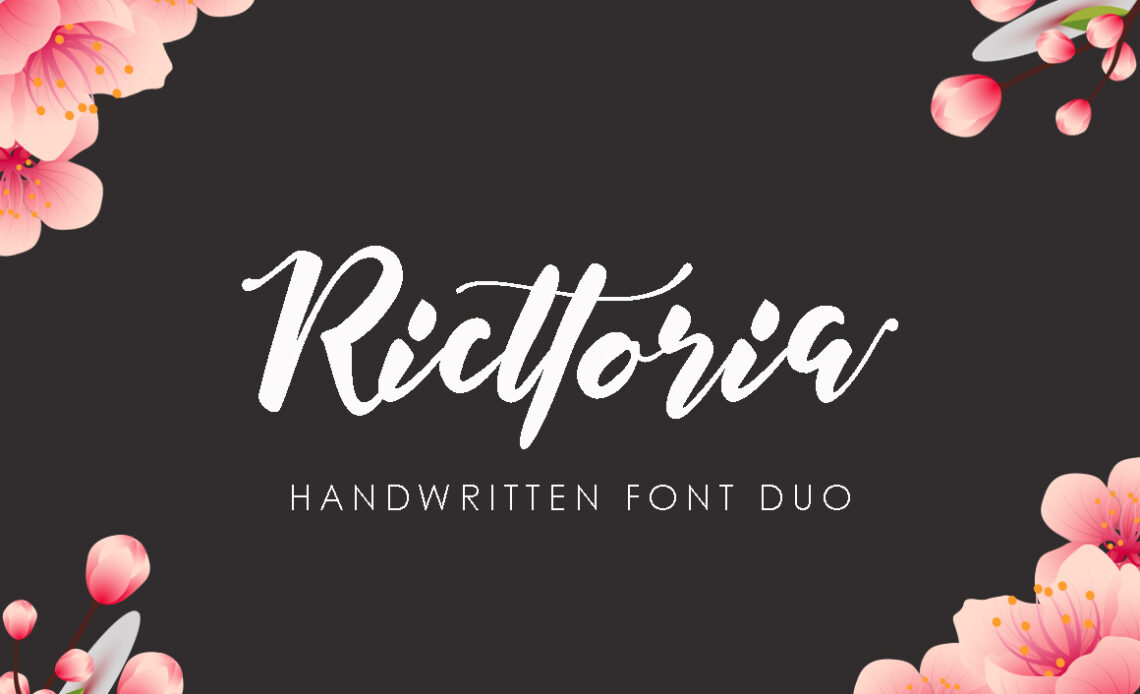
Prepare to be captivated by Ricttoria, a modern script font that breathes creativity into your digital world. Immerse yourself in its elegant curves and let your imagination soar. Ricttoria is more than just a font; it's a gateway to express your individuality and make a lasting impression.
With two distinct fonts at your fingertips, you're empowered to craft designs that stand out from the crowd. Whether you're creating captivating logos, enchanting invitations, or showcasing your passion in social media posts, Ricttoria's undeniable charm will add a touch of magic to every project.
Experience the beauty of handcrafted typography that effortlessly complements your creative vision. Ricttoria's versatility knows no bounds, seamlessly adapting to a myriad of styles and projects. Unleash your imagination and let your designs shine with the captivating allure of Ricttoria.